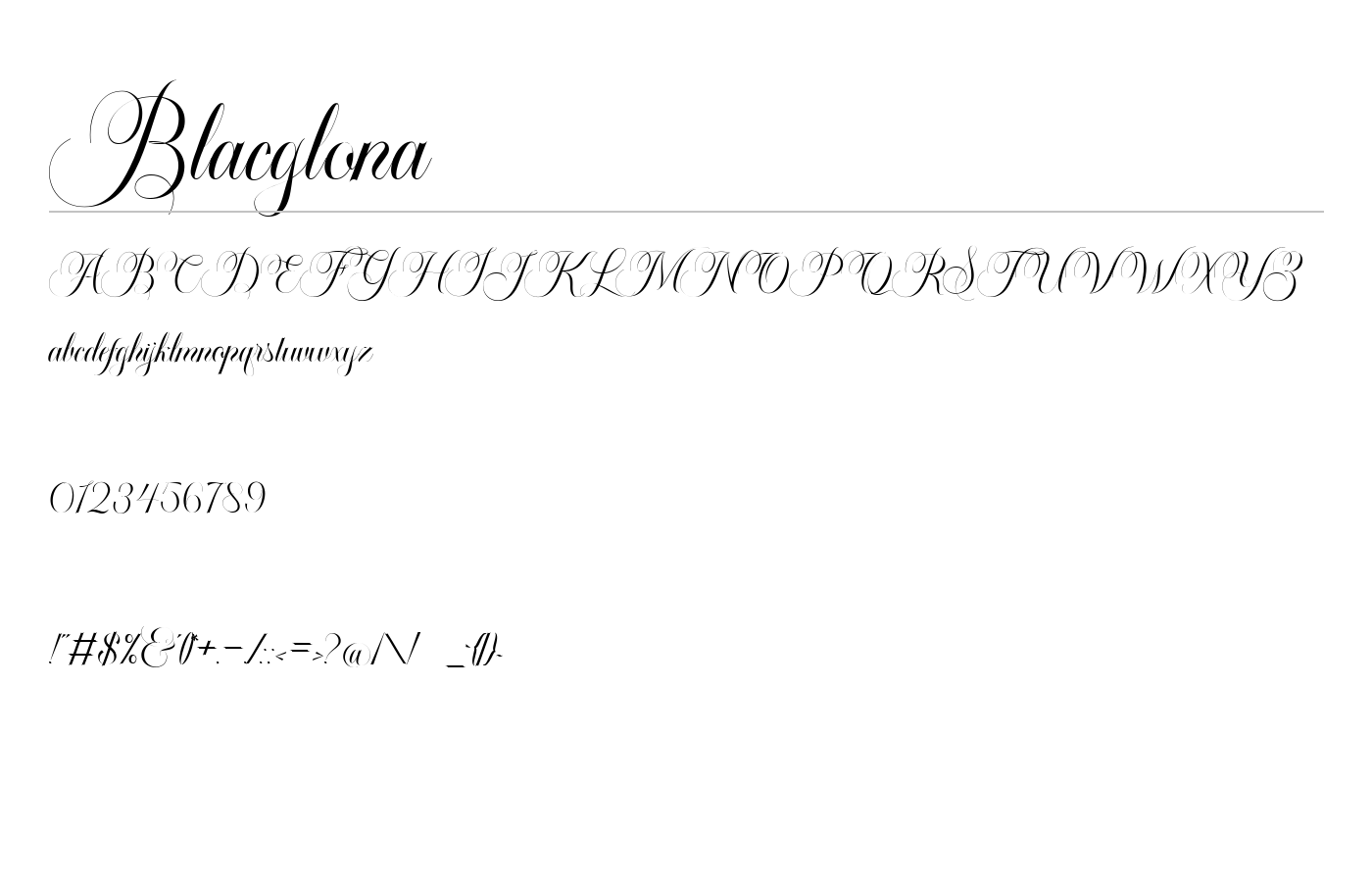
Blacglona is an elegant, high-contrast script font featuring delicate, flowing lines and intricate swashes that give it a refined and luxurious feel. Its slender, graceful letterforms and sophisticated style make it ideal for upscale branding, invitations, and editorial headlines where a touch of classic beauty and sophistication is desired. This font works beautifully in contexts that call for elegance and artistic flair, especially in fashion, luxury products, and formal occasions.
Blacglona Font